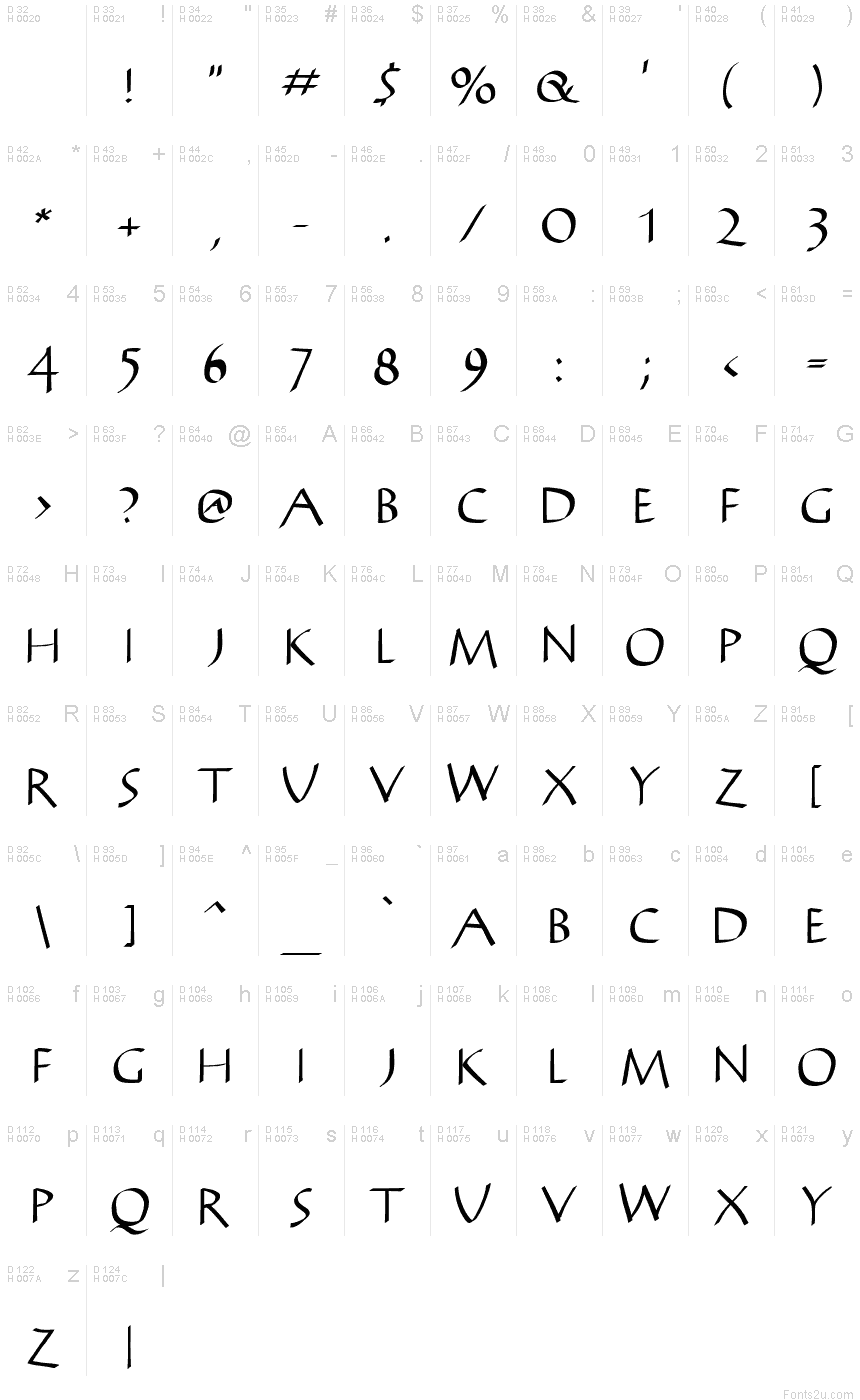
AntiKwa-Bold by mklein is a free angular display font built from stark blade-like strokes, sharp angles, and tapering points. Its uneven stroke widths give the capitals a carved, archaic edge.
The pointed construction echoes spears, stone markings, and angular illustration, making it apt for fantasy game packaging, historical-fiction covers, and museum event graphics. Fashion branding can use the lean proportions and abrupt joints to suggest something austere and unconventional, and underground music posters gain a similarly severe graphic voice. It will speak most directly to audiences drawn to mythology, ritual imagery, experimental culture, alternative fashion, and darker forms of theatrical design.